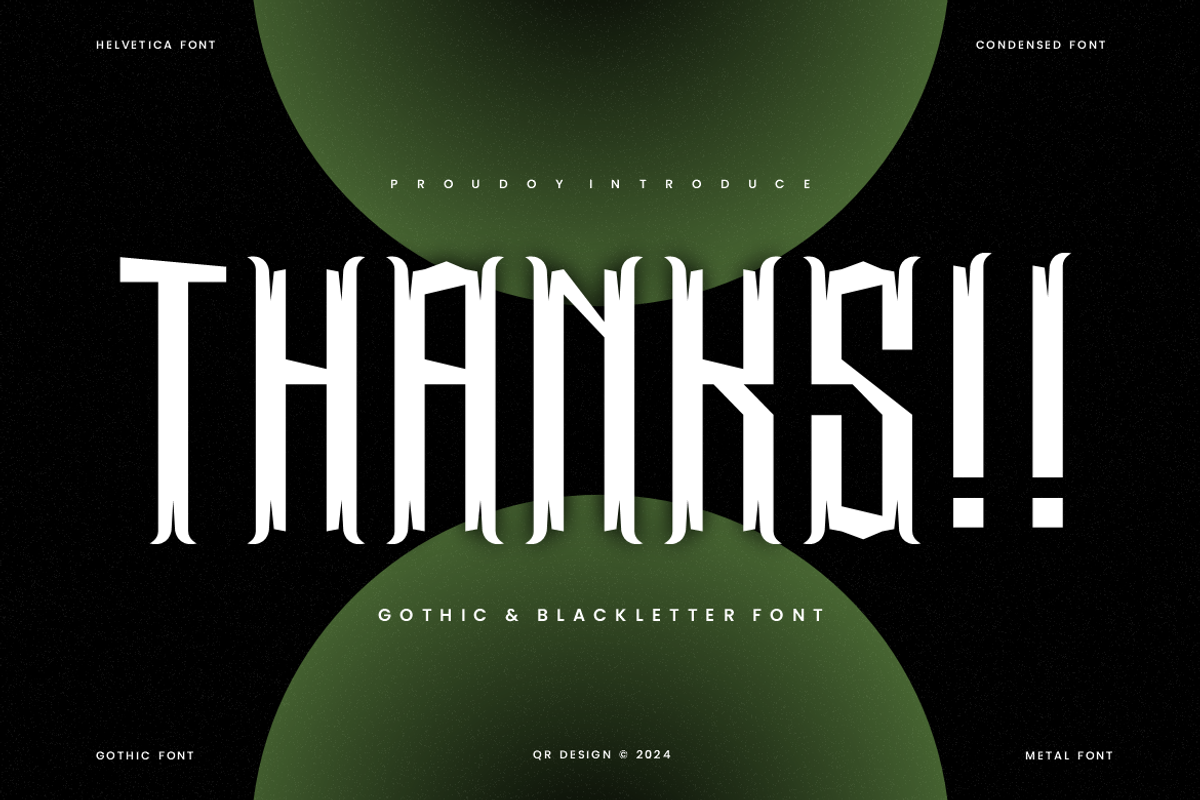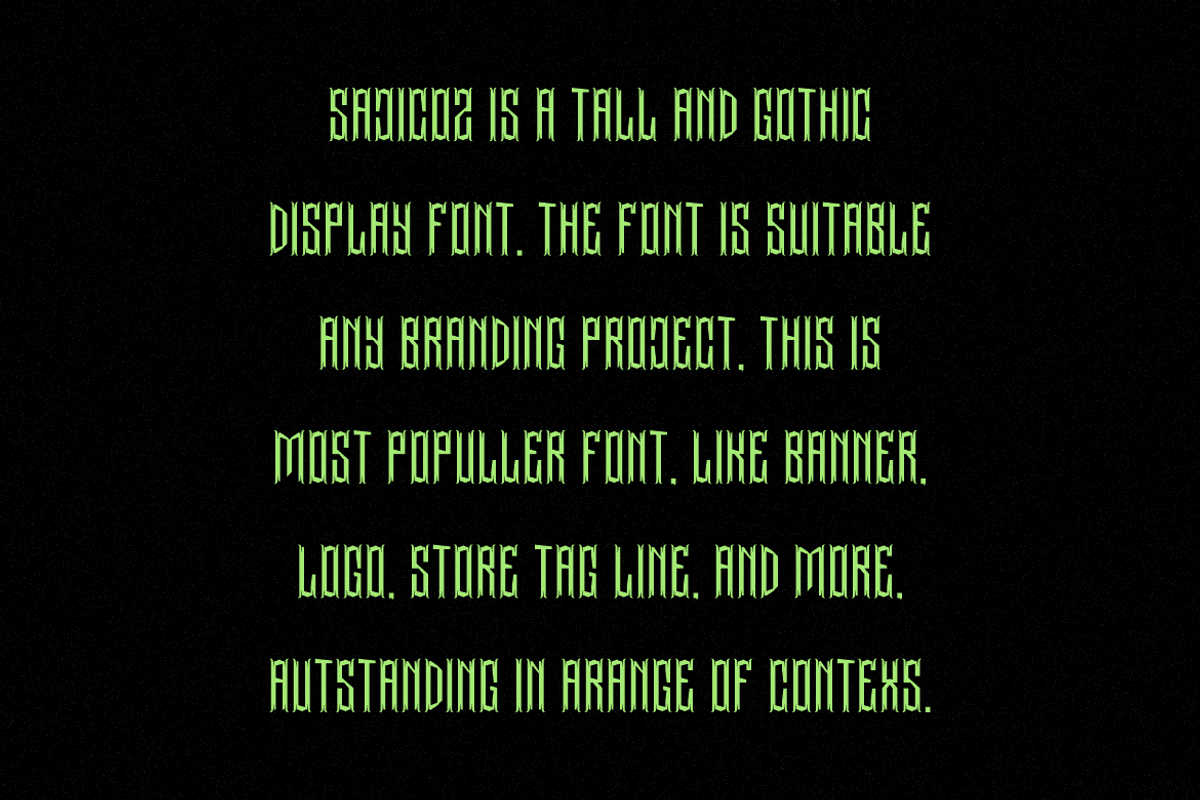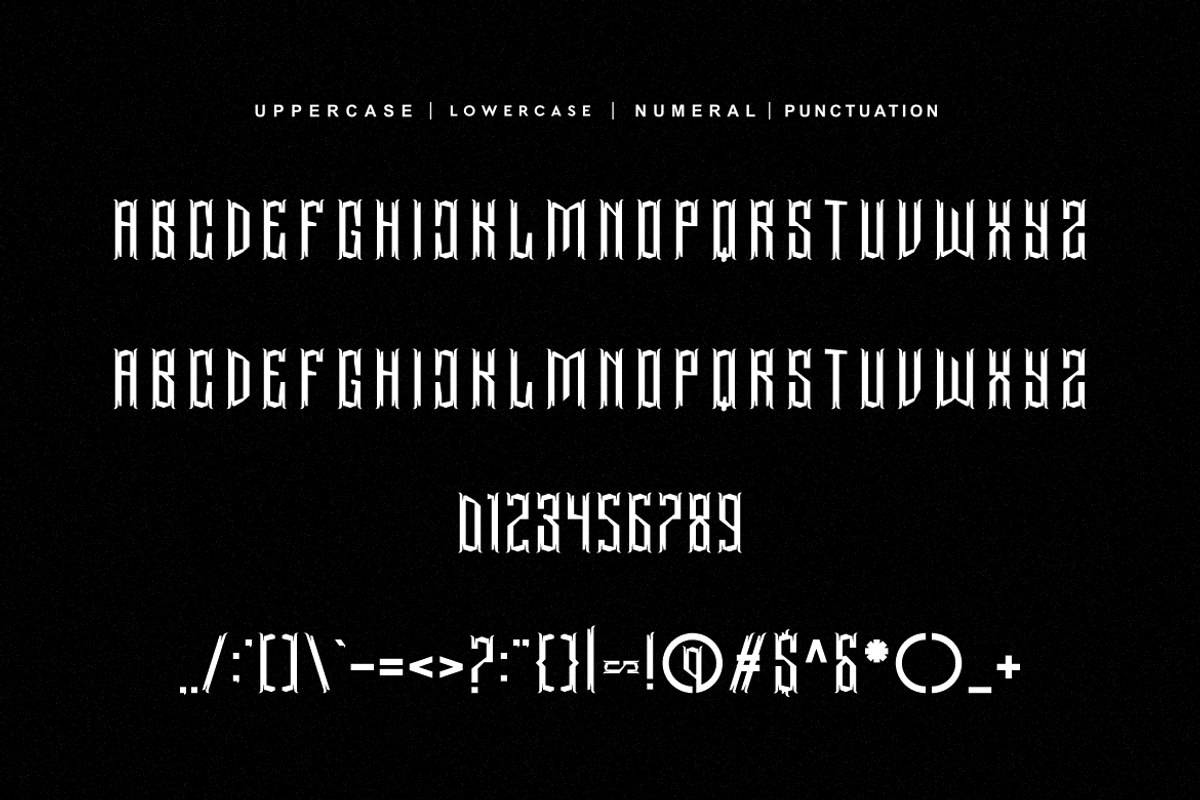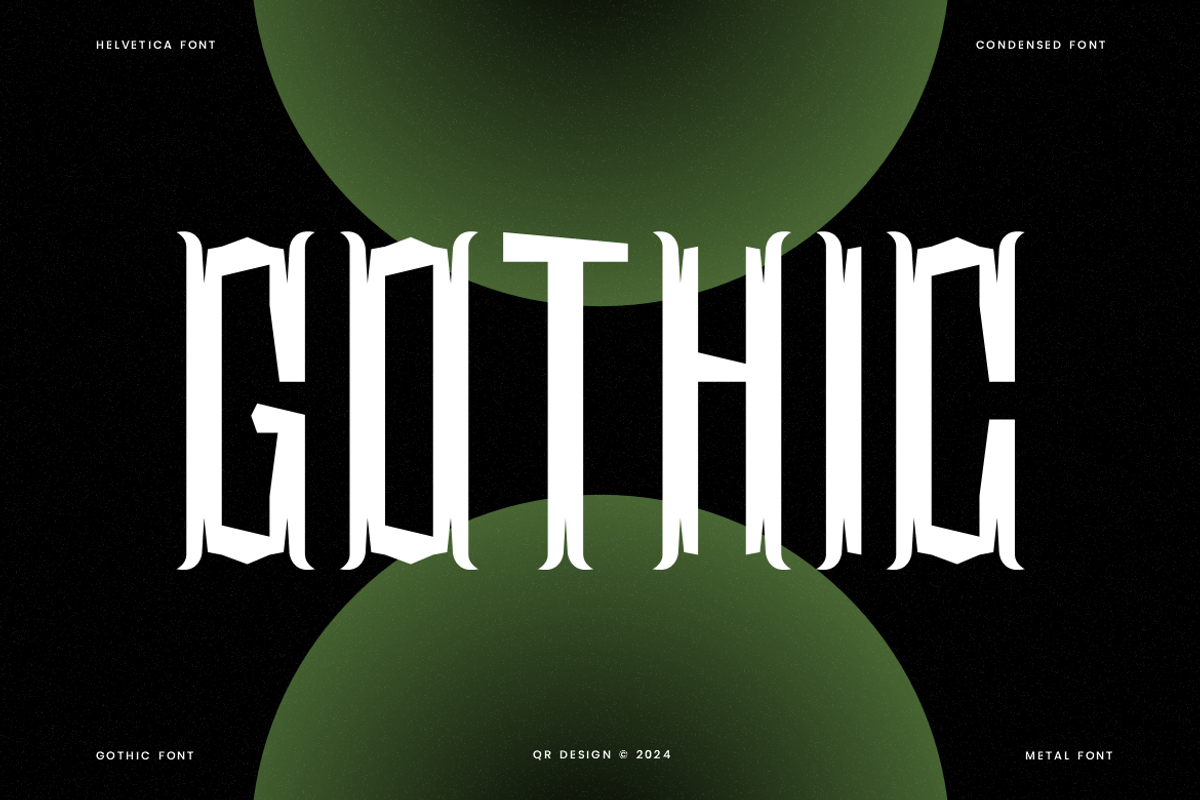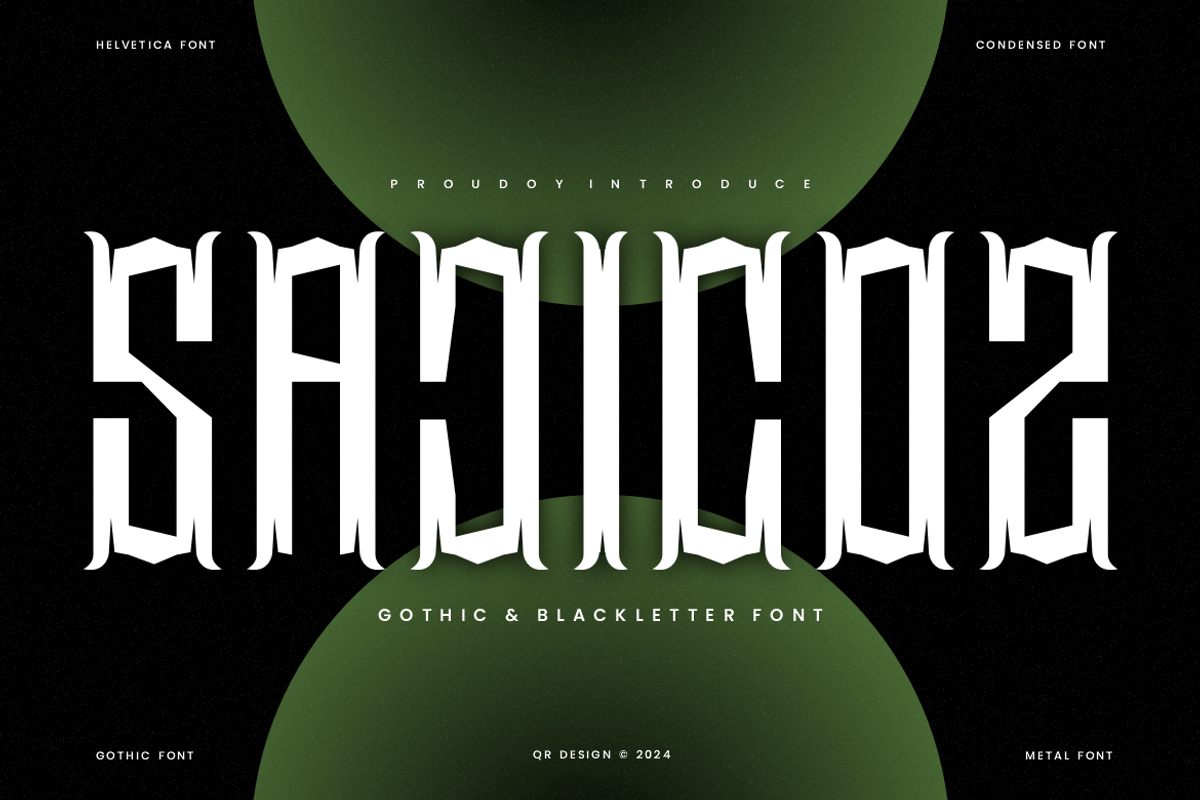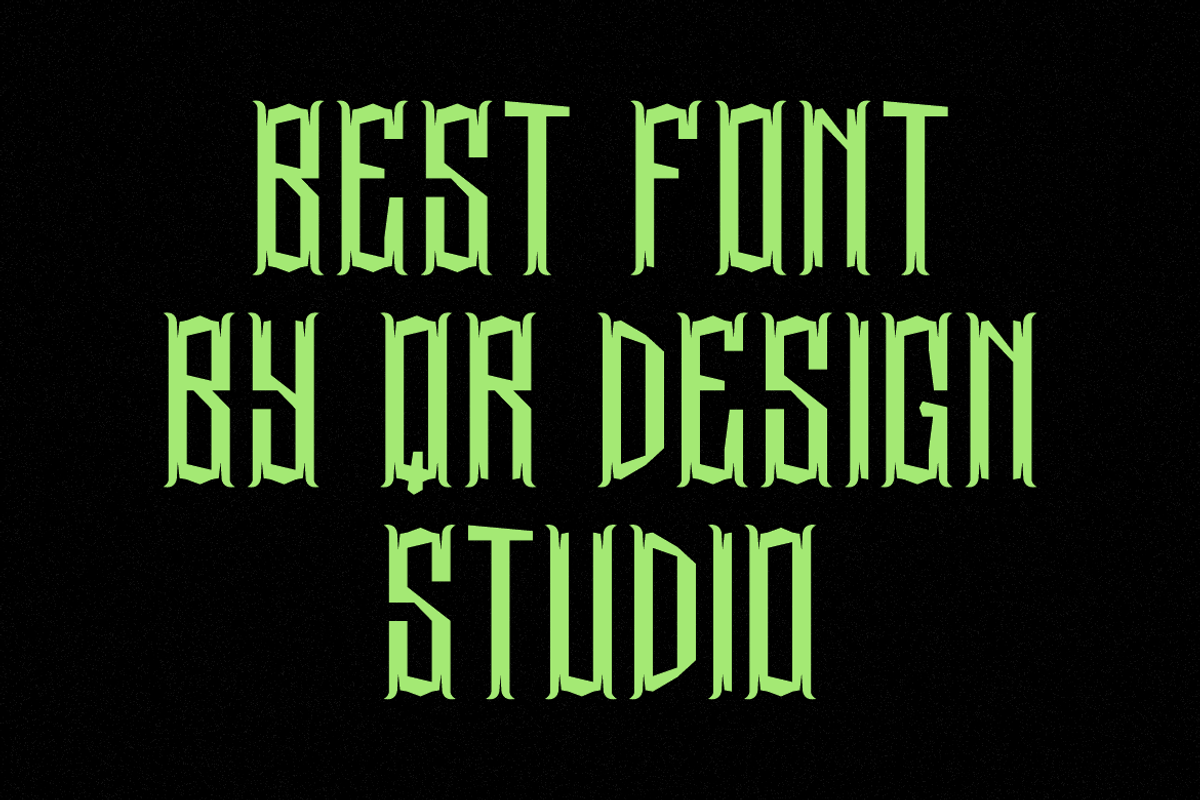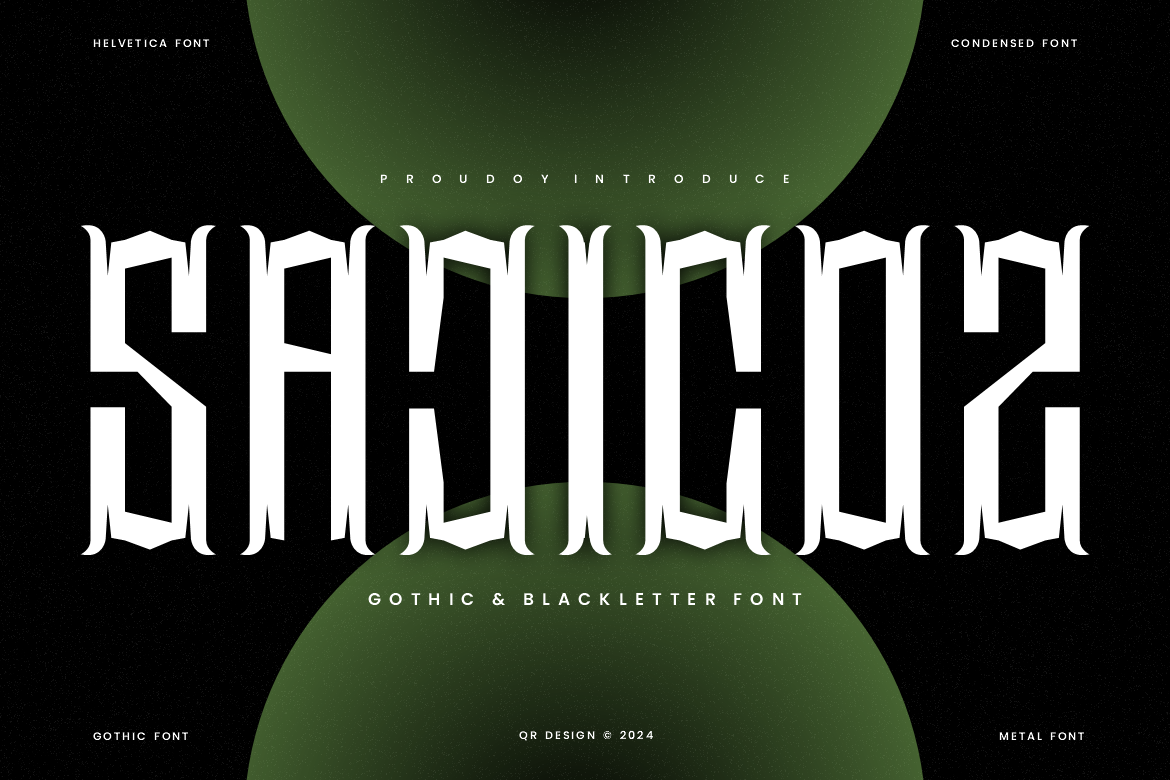
Sajicoz - Gothic & Blackletter Font
Sajicoz - Gothic Font is a bold and authentic display font. The font is suitable for any branding project like poster, logo, sport, and many more. Outstanding in a wide range of contexts.